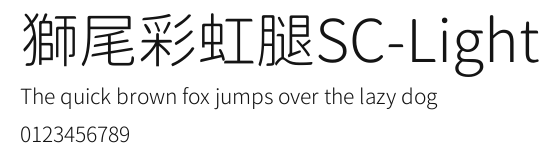
獅尾彩虹腿SC-Light Preview
• Font Name: 獅尾彩虹腿SC-Light
• Font Style: Light
• Font ID: FontForge 2.0 : Swei Rainbow Leg CJK SC Light : 20-4-2020
• Full Font Name: 獅尾彩虹腿SC-Light
• PostScript Name: SweiRainbowLegCJKsc-Light
About 獅尾彩虹腿SC-Light.ttf
獅尾彩虹腿SC-Light.ttf is a modern, elegant sans-serif font designed for ultimate readability and visual harmony. Perfect for branding, headlines, web design, and print materials.